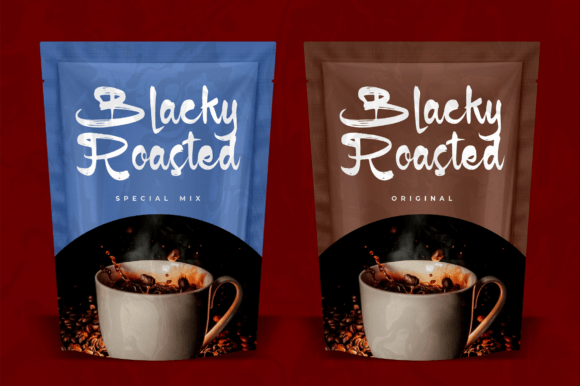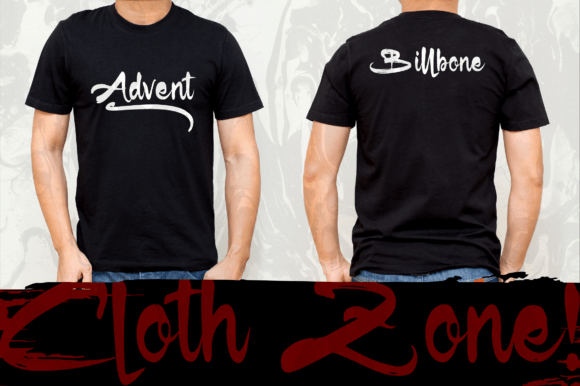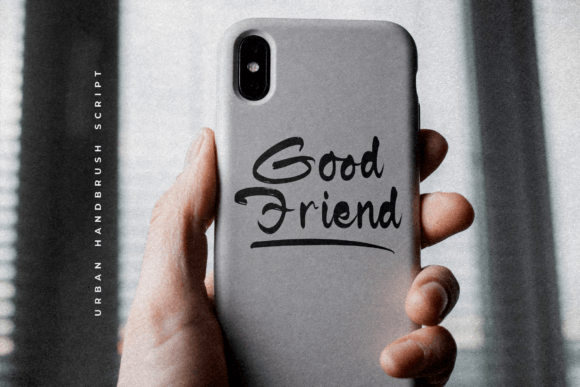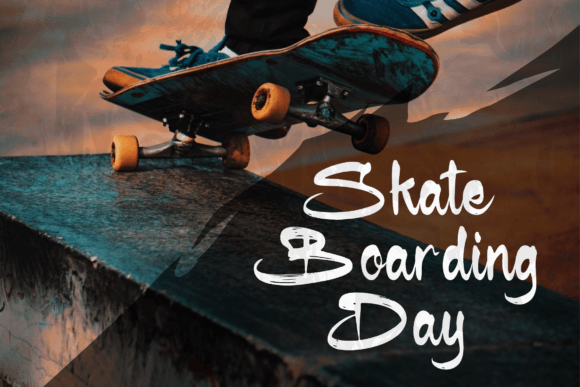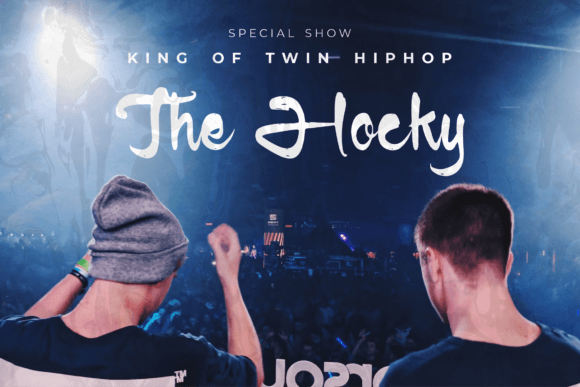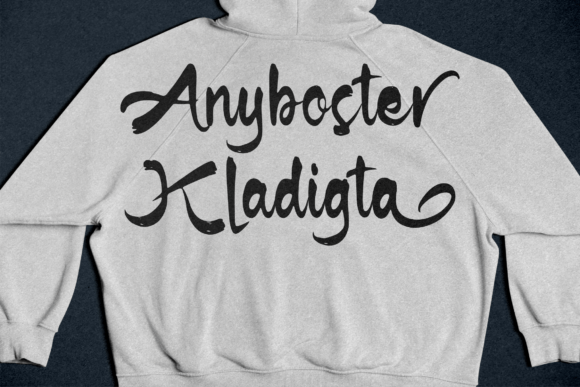
Have you ever stared at a blank canvas, notebook, or screen, waiting for the perfect font to spark your creativity? That’s where the magic happens – when the right tool inspires your vision. For designers seeking a unique, urban flair, the Anyboster Kladigta Font from Glorytype Studio is a game-changer.
This beautiful script font is designed for a wide range of projects, from logos and branding to homeware designs, product packaging, and even quotes and posters. Its versatility makes it an invaluable addition to any designer’s toolkit. The Anyboster Kladigta Font brings a touch of elegance and sophistication to any project, making it a valuable asset for designers looking to elevate their work.
- Font Style: Script, Casual, Whimsical
- Character Set: Latin, Cyrillic, Greek, Extended Latin
- Unique Characteristics: Handwritten, cursive, and playful feel, suitable for creative and artistic projects
Anyboster Kladigta Font Review
Overall, I think the Anyboster Kladigta Font has some great qualities, but also a few limitations that may make it less suitable for certain projects. ✨
- Unique aesthetic: The font has a distinct, quirky feel that can add a lot of character to a design.
- Good for body text: The font is clear and readable, making it a good choice for longer blocks of text.
- Good font pairing options: The font pairs well with a variety of other fonts, making it a versatile choice.
Limitsations:
- Not suitable for headings: The font is a bit too playful for headings, and may get lost in bold or italic formatting.
- May not be accessible: The font’s unique shape may make it difficult for some users to read, particularly those with visual impairments.
- Limited language support: The font may not support all languages, which could be a problem for global brands or websites.
The Anyboster Kladigta Font is a fun, creative option that’s perfect for projects that need a bit of personality. However, it may not be the best choice for more formal or accessibility-focused designs.
Tips: Use Anyboster Kladigta Font for creative and artistic designs. Pair it with bold colors and patterns to make a statement.
Tips: Use Anyboster Kladigta Font for creative typography projects. Experiment with different font sizes and styles to create visual interest.
Tips: Use Anyboster Kladigta Font for presentations and documents that require a touch of elegance. Pair it with simple backgrounds to let the font shine.
Anyboster Kladigta Font is suitable for:
- Creative and artistic designs.
Fontin Sans is a sans-serif font designed by Victor Caruso in 1996. It is a clean and modern font that is suitable for digital applications such as websites, apps, and social media platforms. Fontin Sans is more geometric and clean compared to Anyboster Kladigta Font, making it ideal for use in digital media.
Comparison: Fontin Sans has a more minimalist design compared to Anyboster Kladigta Font, which makes it more suitable for digital applications. Anyboster Kladigta Font has a more ornate and decorative feel, making it more suitable for print media or projects that require a more vintage look.
Montserrat is a sans-serif font designed by Julieta Ulanovsky in 2011. It is a modern and urban font that is inspired by the streets of Montserrat, a neighborhood in Buenos Aires, Argentina. Montserrat is a clean and versatile font that is suitable for a wide range of applications, including digital media, print media, and signage.
Comparison: Montserrat has a more geometric and clean design compared to Anyboster Kladigta Font, making it more suitable for digital applications. Anyboster Kladigta Font has a more ornate and decorative feel, making it more suitable for projects that require a more vintage or luxurious look.